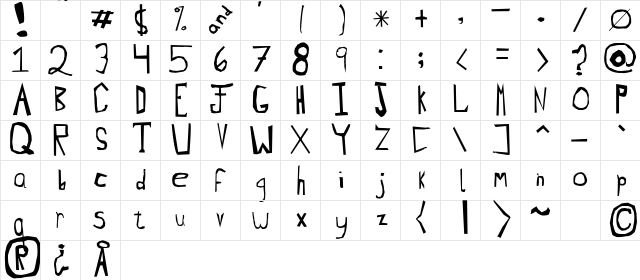
Lake Kegonsa crappy
Design Context for Lake Kegonsa Typeface
Lake Kegonsa is a composed and adaptable typeface that performs quietly and consistently across a wide range of design contexts.